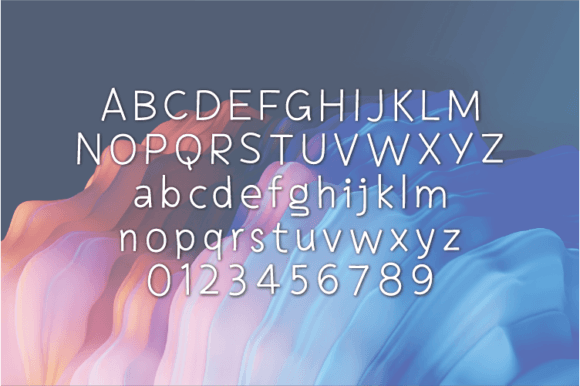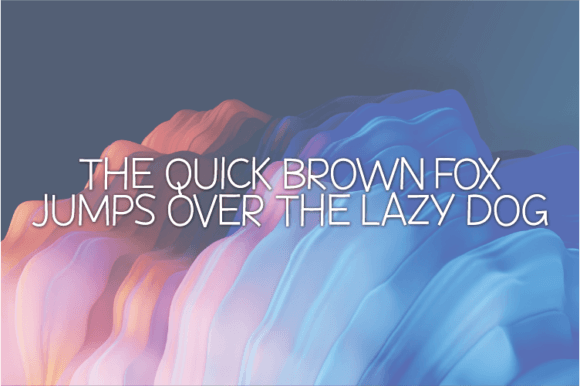
The Beauty of Fonts: Elevate Your Designs with Beautiful Font
As a designer or crafter, you’re constantly on the lookout for the perfect font to elevate your creations. A beautiful font can make all the difference in transforming a simple design into a stunning work of art. In this article, we’ll introduce you to Beautiful Font, a gorgeous sans serif font that will add a touch of elegance to your designs.
What is Beautiful Font?
Beautiful Font is a stunning sans serif font that is sure to become a prized asset in your collection. Its clean and modern lines make it perfect for a wide range of design projects, from logos and quotes to T-shirts, greeting cards, and business cards. With its versatility and aesthetic appeal, Beautiful Font is an excellent addition to any designer’s toolkit.
Key Features of Beautiful Font
- Clean and Modern Design: Beautiful Font boasts a sleek and contemporary design that will give your creations a fresh and modern look.
- Sans Serif Style: The font’s sans serif style makes it perfect for designs that require a clean and minimalist aesthetic.
- Highly Versatile: Beautiful Font can be used for a wide range of design projects, from digital designs to print materials.
- Easily Readable: The font’s clear and legible design ensures that your text is easily readable, even at small sizes.
Uses of Beautiful Font
Beautiful Font is an incredibly versatile font that can be used for a wide range of design projects. Here are some ideas to get you started:
- Logos: Create a stunning logo for your business or brand with Beautiful Font.
- Quotes and Posters: Add a touch of elegance to your quotes and posters with this beautiful font.
- T-Shirts and Apparel: Design eye-catching T-shirts and apparel with Beautiful Font.
- Greeting Cards: Create beautiful greeting cards for special occasions with this lovely font.
- Business Cards: Elevate your business cards with Beautiful Font and make a lasting impression.
Benefits of Using Beautiful Font
Using Beautiful Font in your designs offers numerous benefits, including:
- Enhanced Visual Appeal: Beautiful Font adds a touch of elegance and sophistication to your designs.
- Increased Readability: The font’s clear and legible design ensures that your text is easily readable.
- Versatility: Beautiful Font can be used for a wide range of design projects, making it a valuable addition to your font collection.
- Time-Saving: With Beautiful Font, you can create stunning designs quickly and easily, saving you time and effort.
Tips for Using Beautiful Font
Here are some tips for getting the most out of Beautiful Font:
- Experiment with Different Sizes: Beautiful Font looks great at a variety of sizes, so don’t be afraid to experiment.
- Pair with Other Fonts: Try pairing Beautiful Font with other fonts to create a unique and eye-catching design.
- Use for Headings and Titles: Beautiful Font is perfect for headings and titles, adding a touch of elegance to your designs.
- Keep it Simple: Don’t overcomplicate your design – Beautiful Font looks great on its own, so keep it simple and let the font shine.
In conclusion, Beautiful Font is a stunning sans serif font that is sure to elevate your designs. With its clean and modern lines, versatility, and aesthetic appeal, it’s an excellent addition to any designer’s toolkit. Whether you’re a professional designer or a crafter, Beautiful Font is a must-have font that will help you create stunning designs that stand out from the crowd.